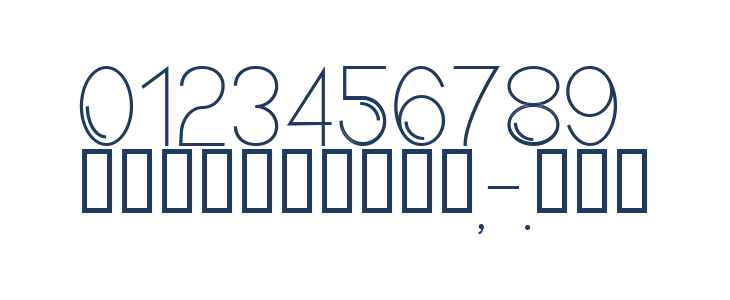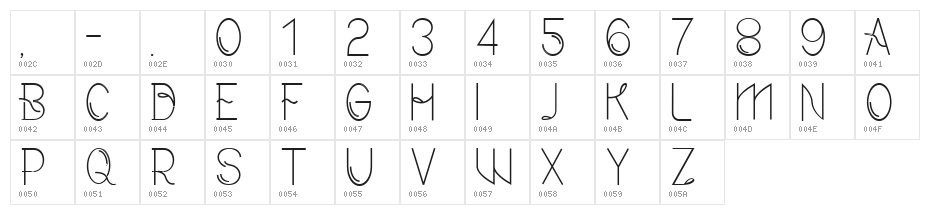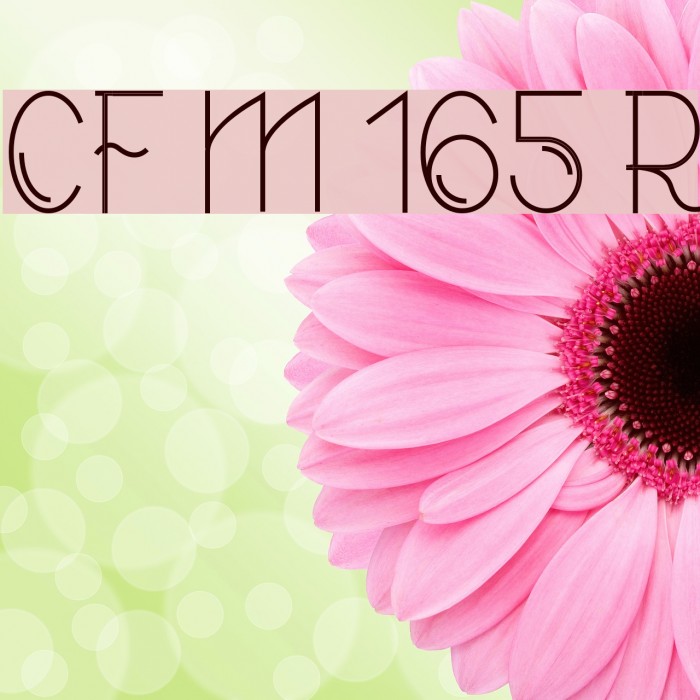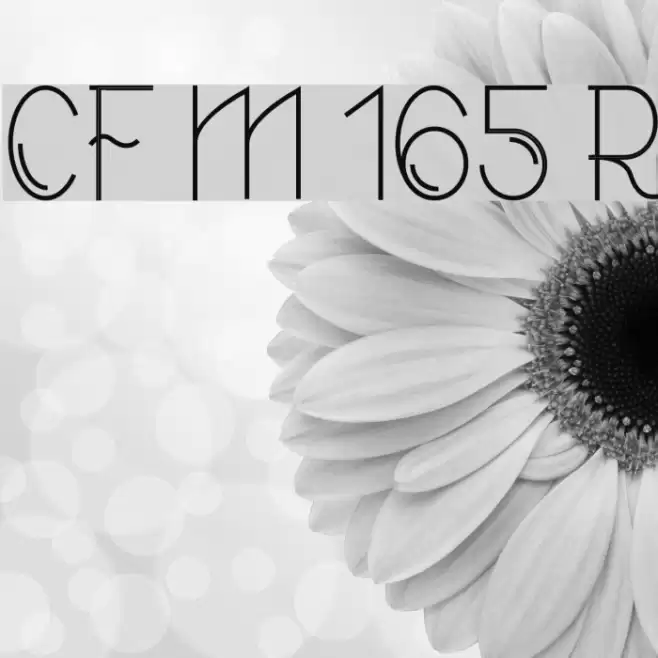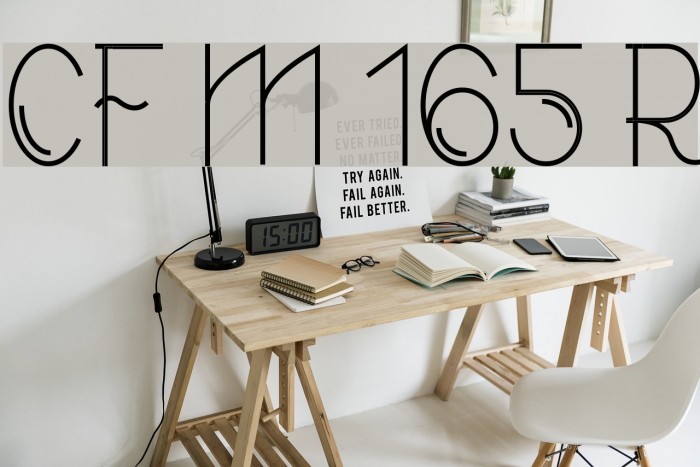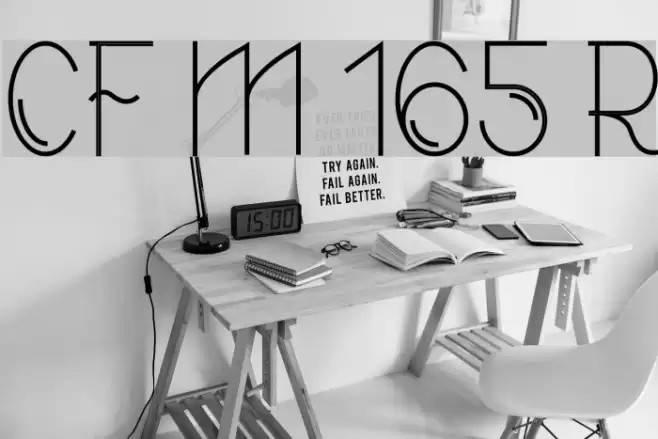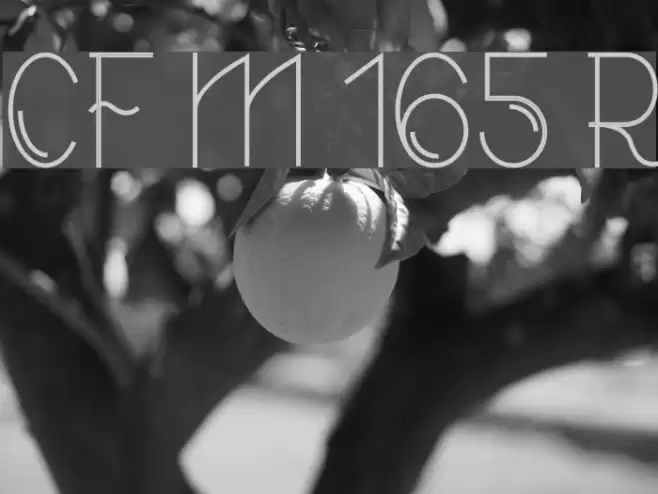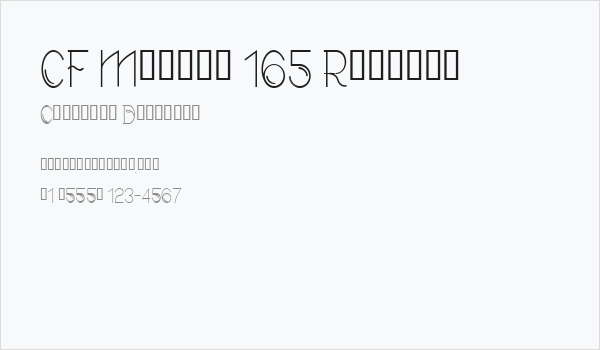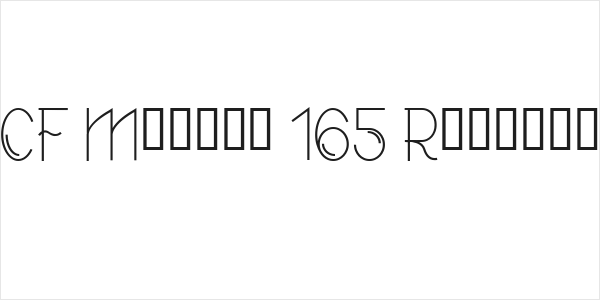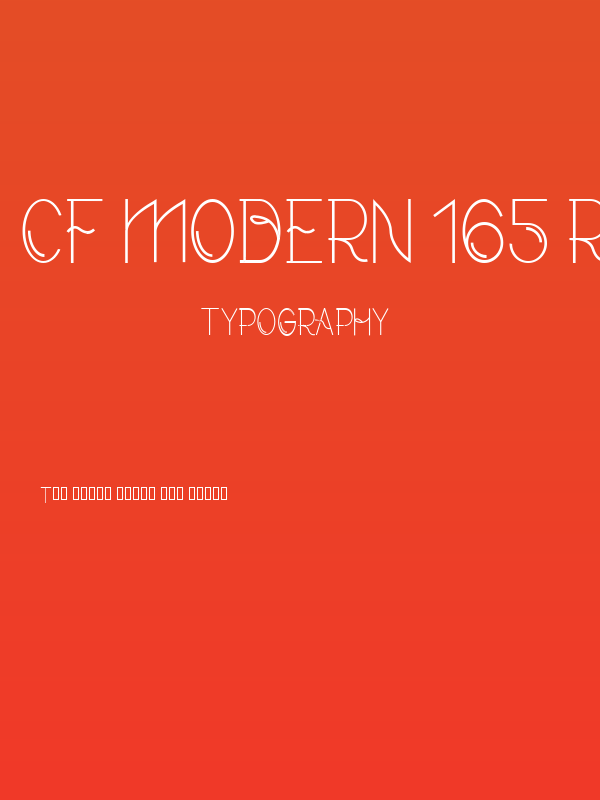
CF Modern 165 Regular Font
CF Modern 165 Regular Description
This font features a modern and sleek design with a unique twist on traditional letterforms. The uppercase letters are characterized by their thin, elongated strokes and subtle curves, creating an elegant and sophisticated appearance. The lowercase letters maintain a consistent style, with a focus on clean lines and minimalistic design. The numerals are distinct and easily readable, following the same modern aesthetic. The special characters are designed to complement the overall style, ensuring a cohesive look across all text elements.
| Proposed Projects | Ideal for branding, fashion magazines, modern websites, and luxury product packaging. |